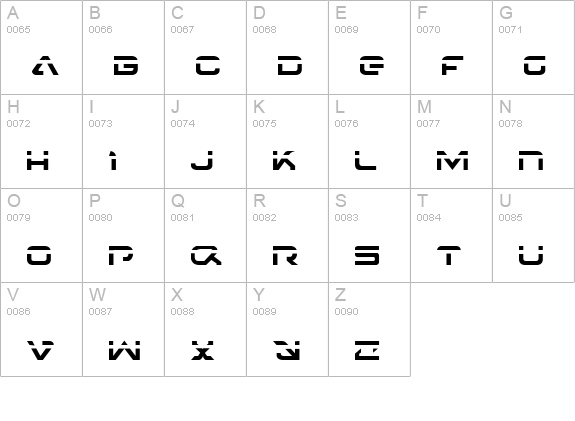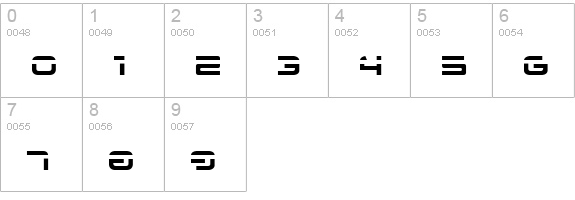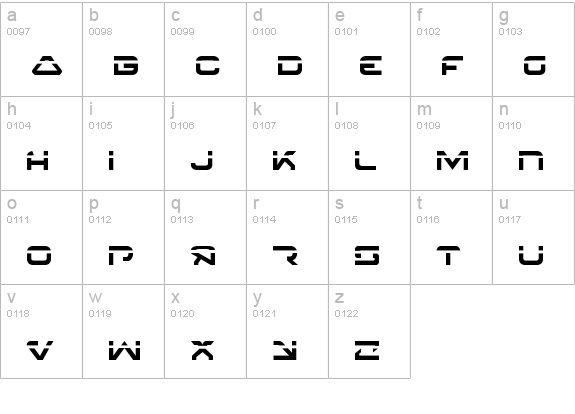
The 4114 Blaster Laser font is a futuristic and edgy typeface that exudes a sense of energy and modernity. Its sharp angles and sleek lines give it a high-tech look that is perfect for projects that require a bold and dynamic aesthetic. This font is ideal for creating eye-catching headlines, posters, logos, and other design projects that need to make a statement. The best part about the 4114 Blaster Laser font is that it is completely free to download at FontsMarket.com. This means that you can easily access this striking font and incorporate it into your designs without any cost. Whether you're a professional designer looking for a unique font to add to your collection or a hobbyist looking to spice up your creative projects, the 4114 Blaster Laser font is a fantastic choice that won't break the bank. Download it today and let your creativity shine with this cutting-edge typeface.